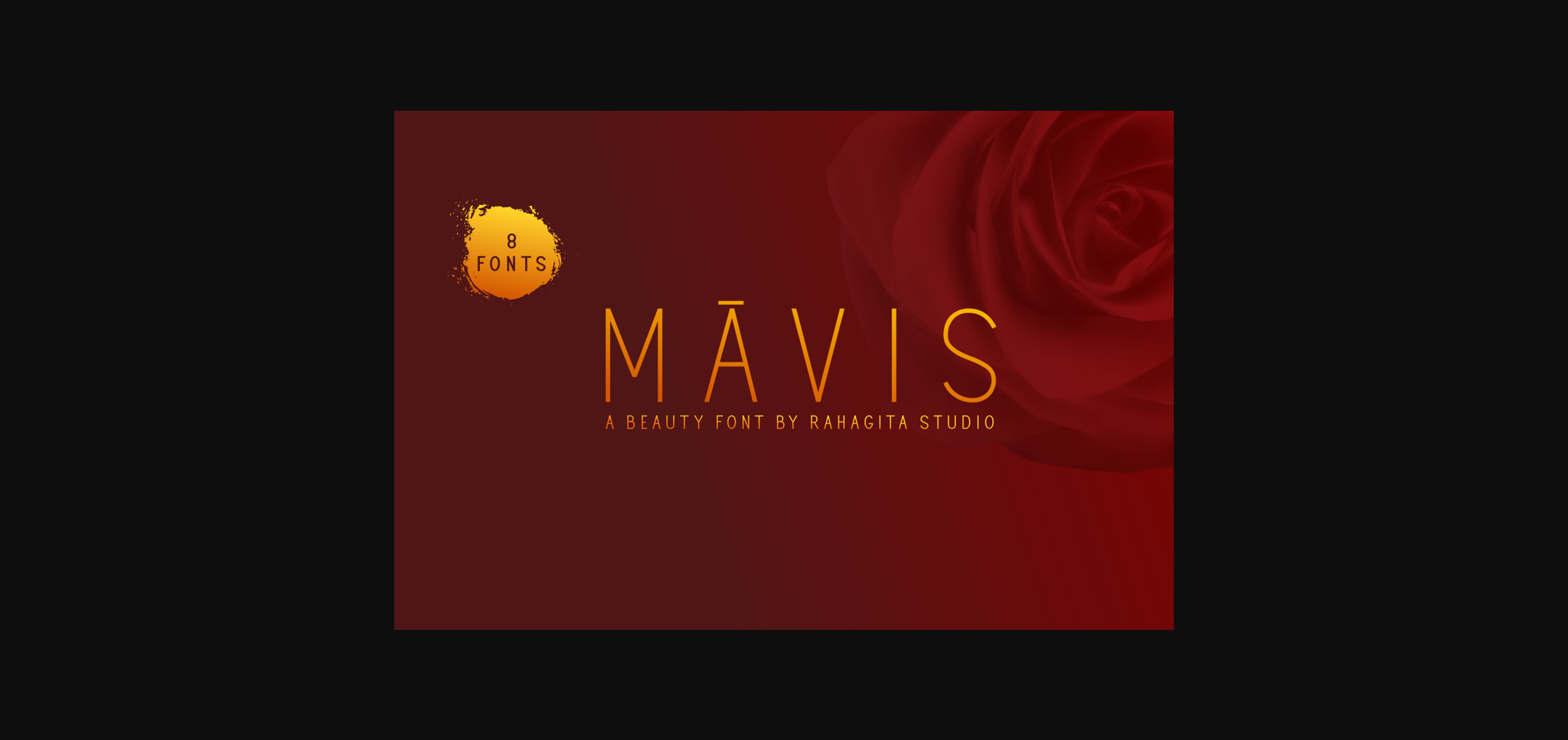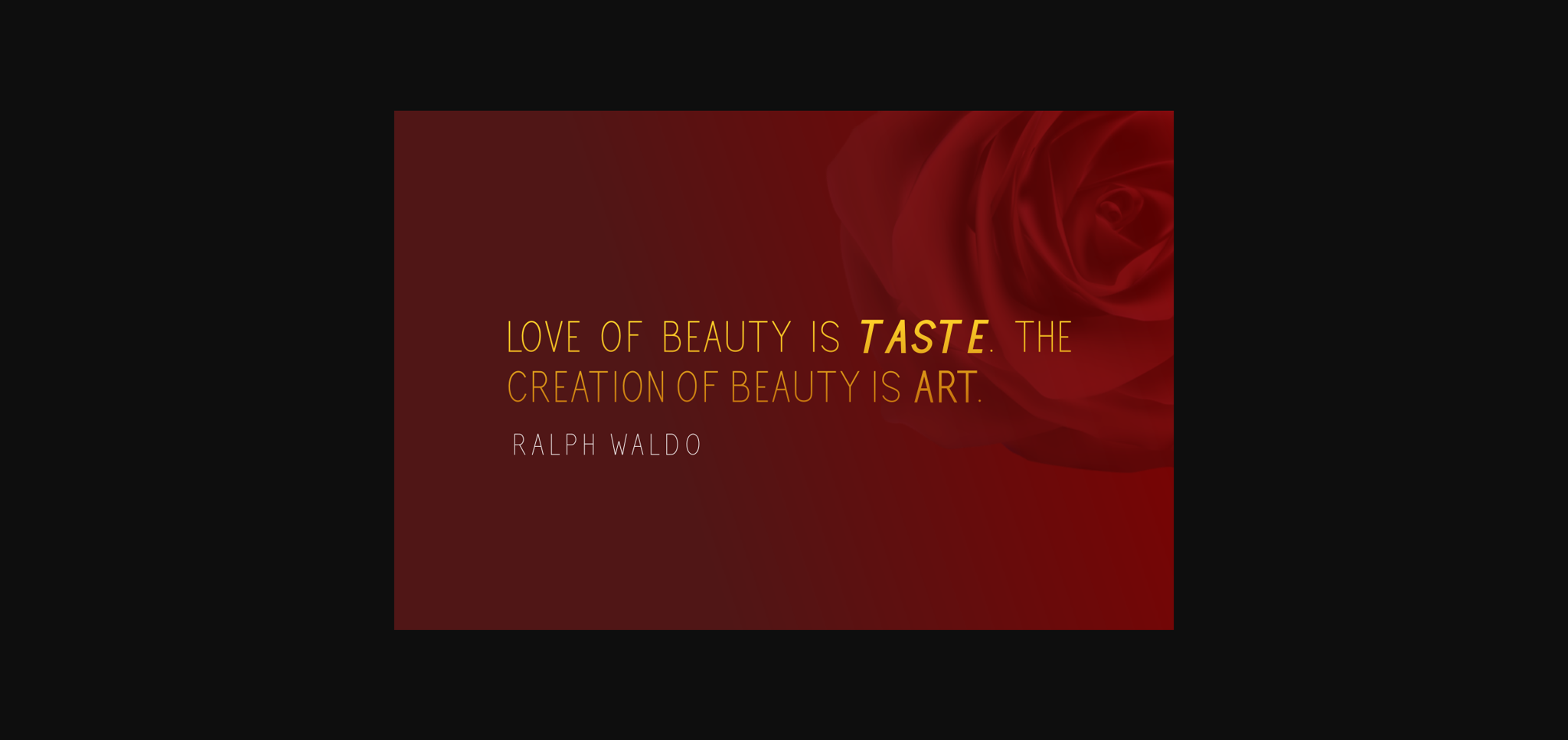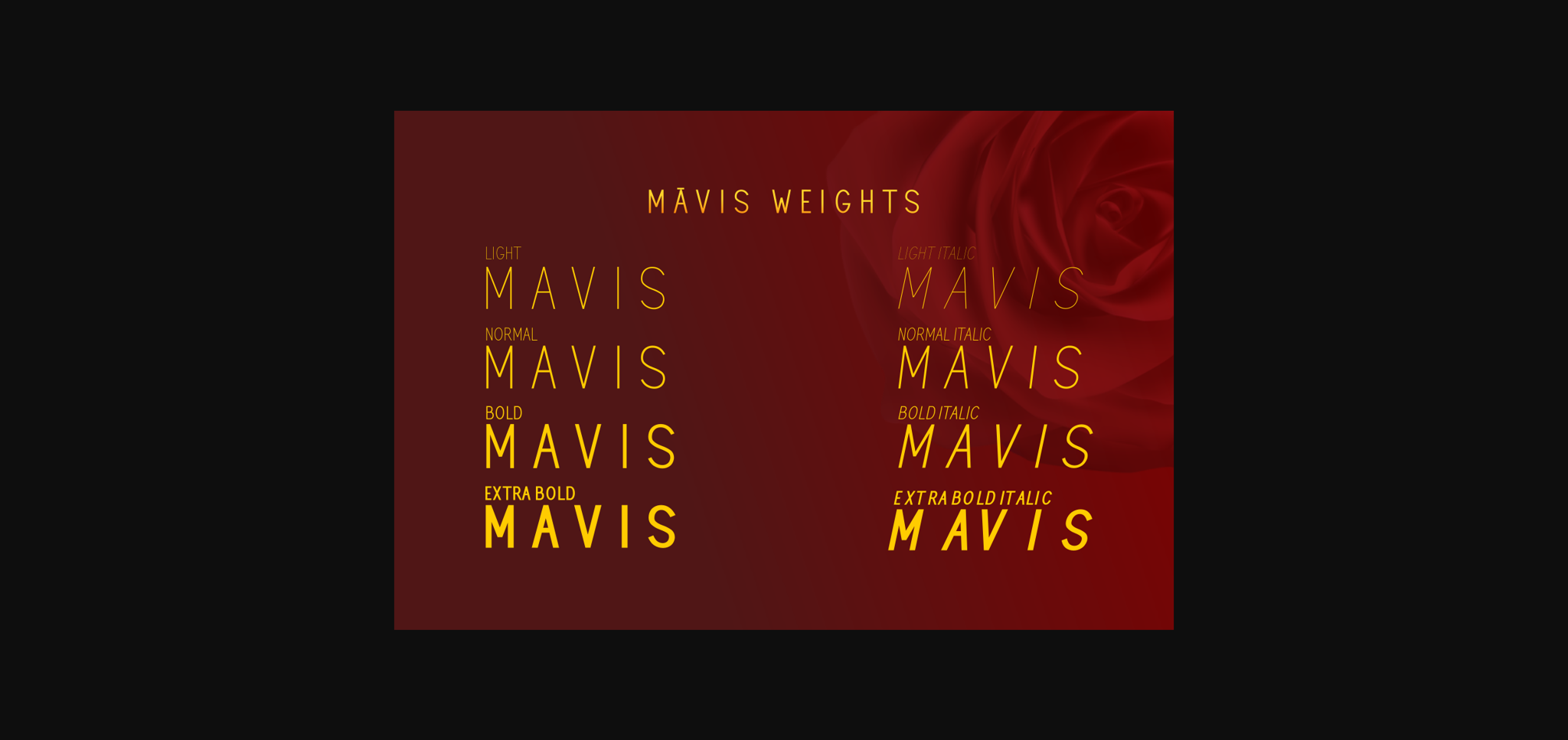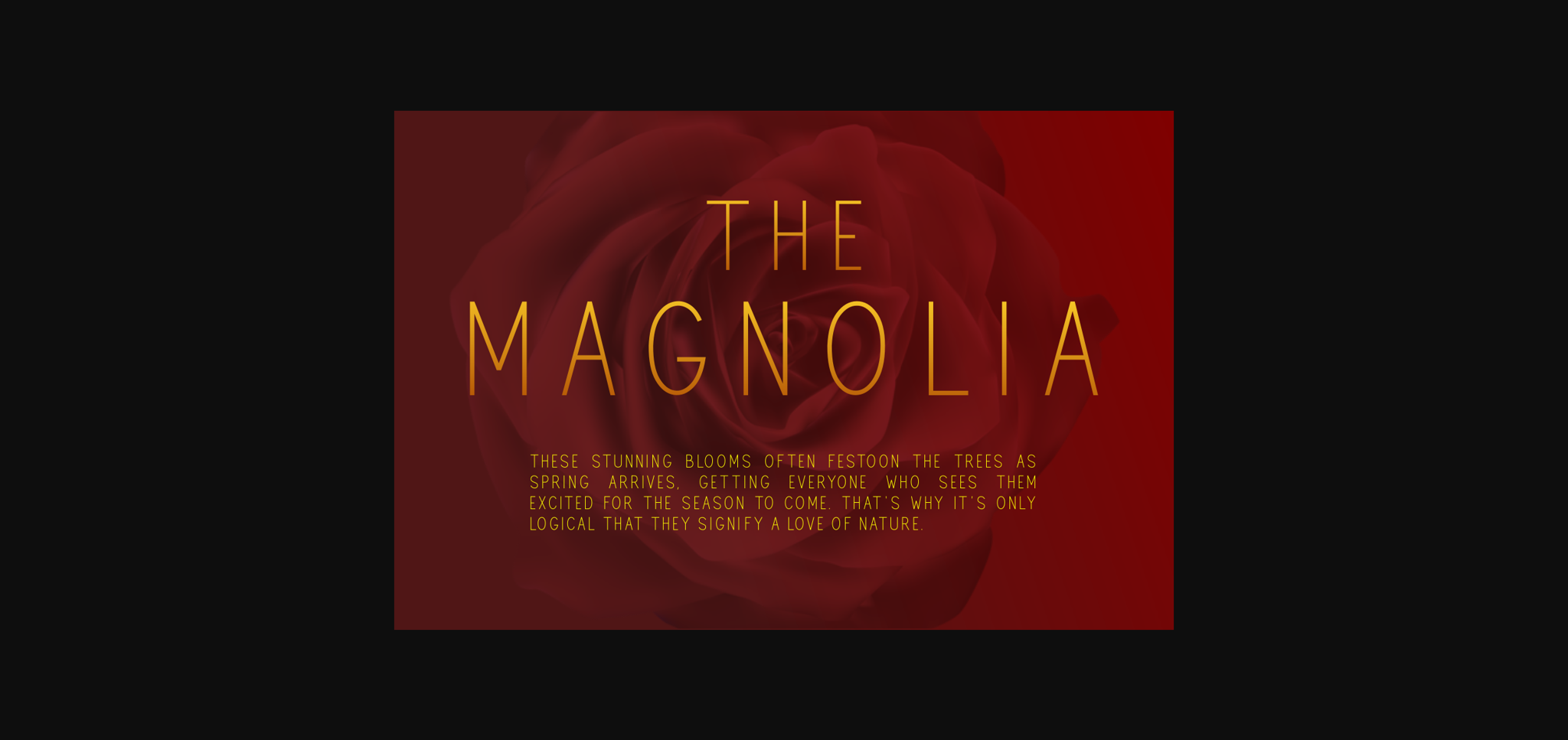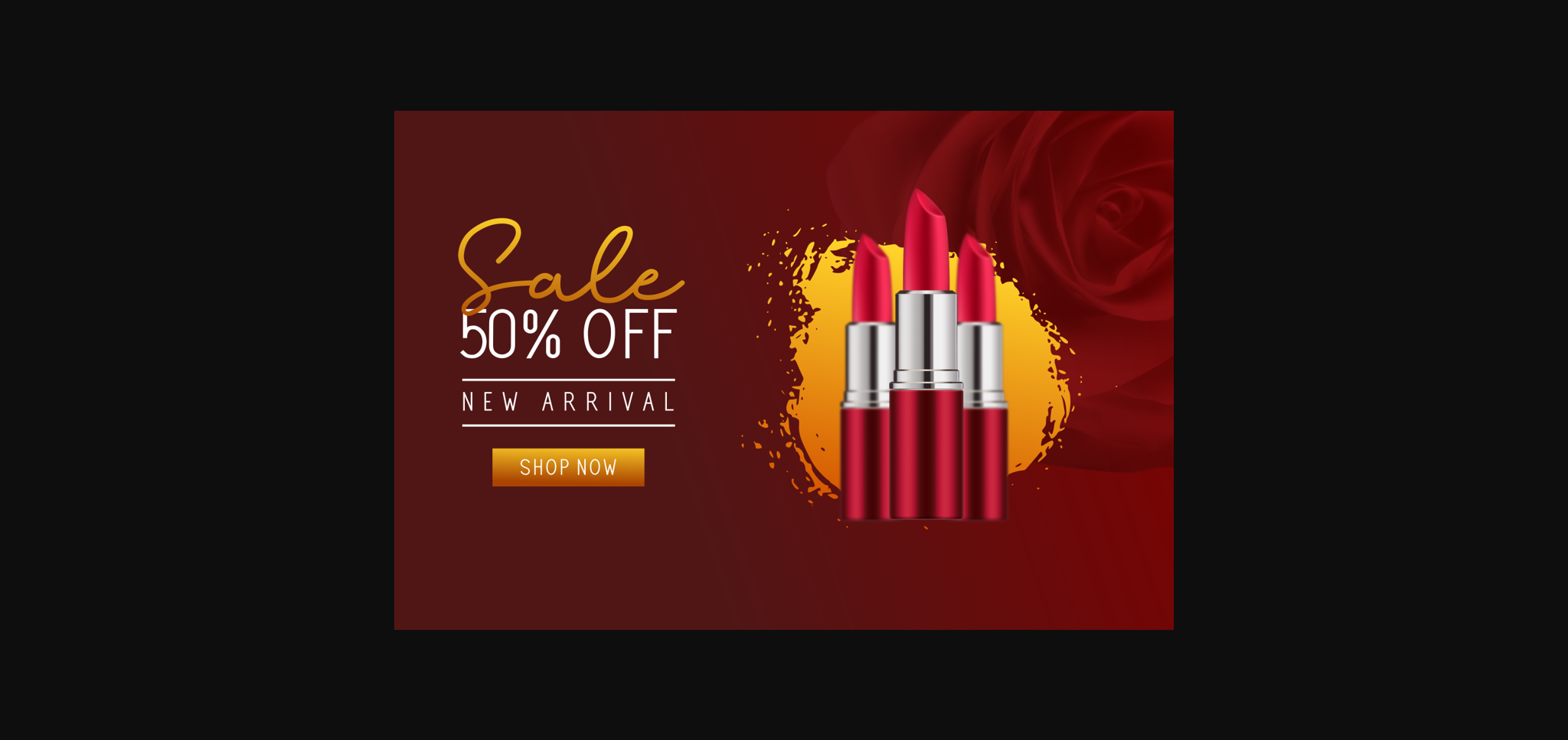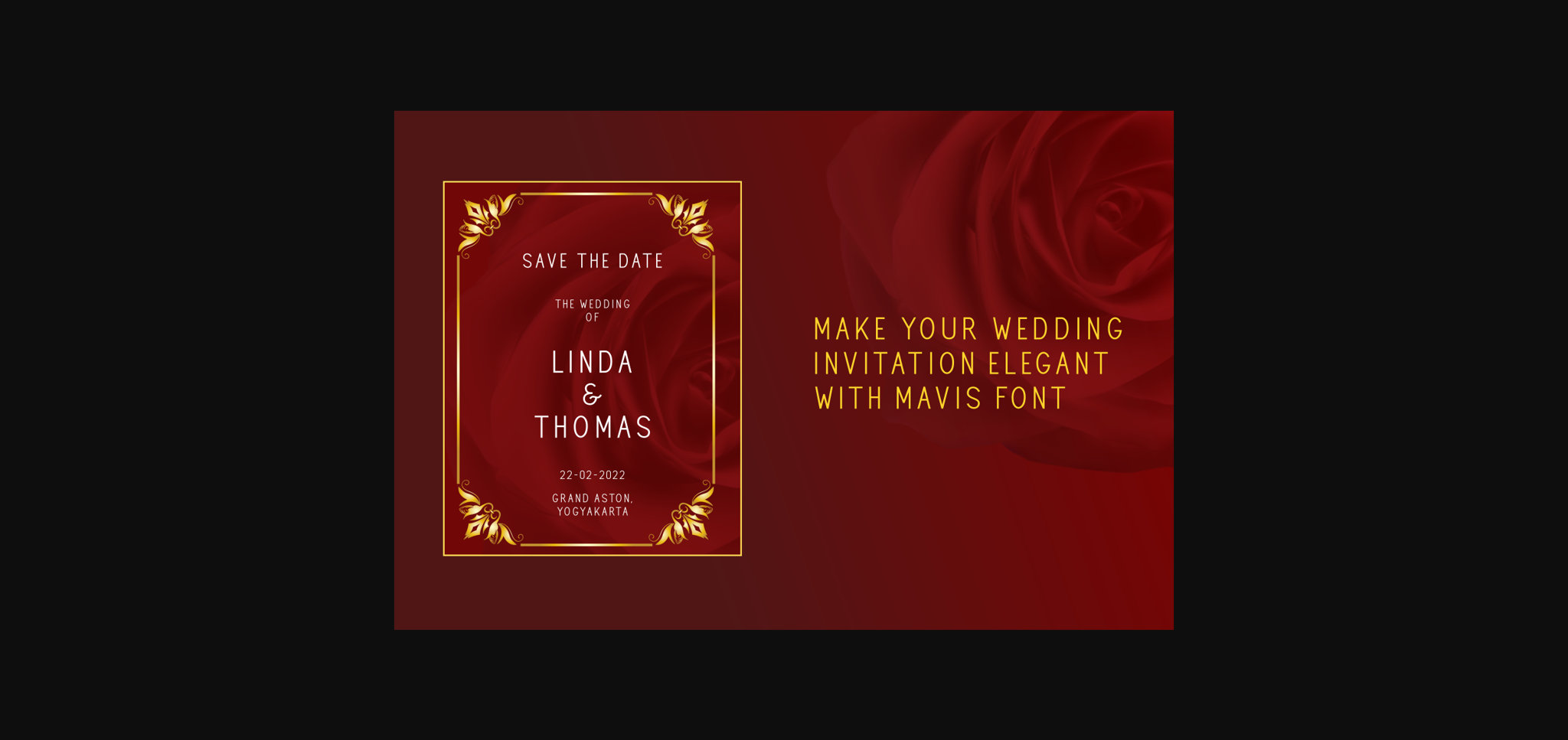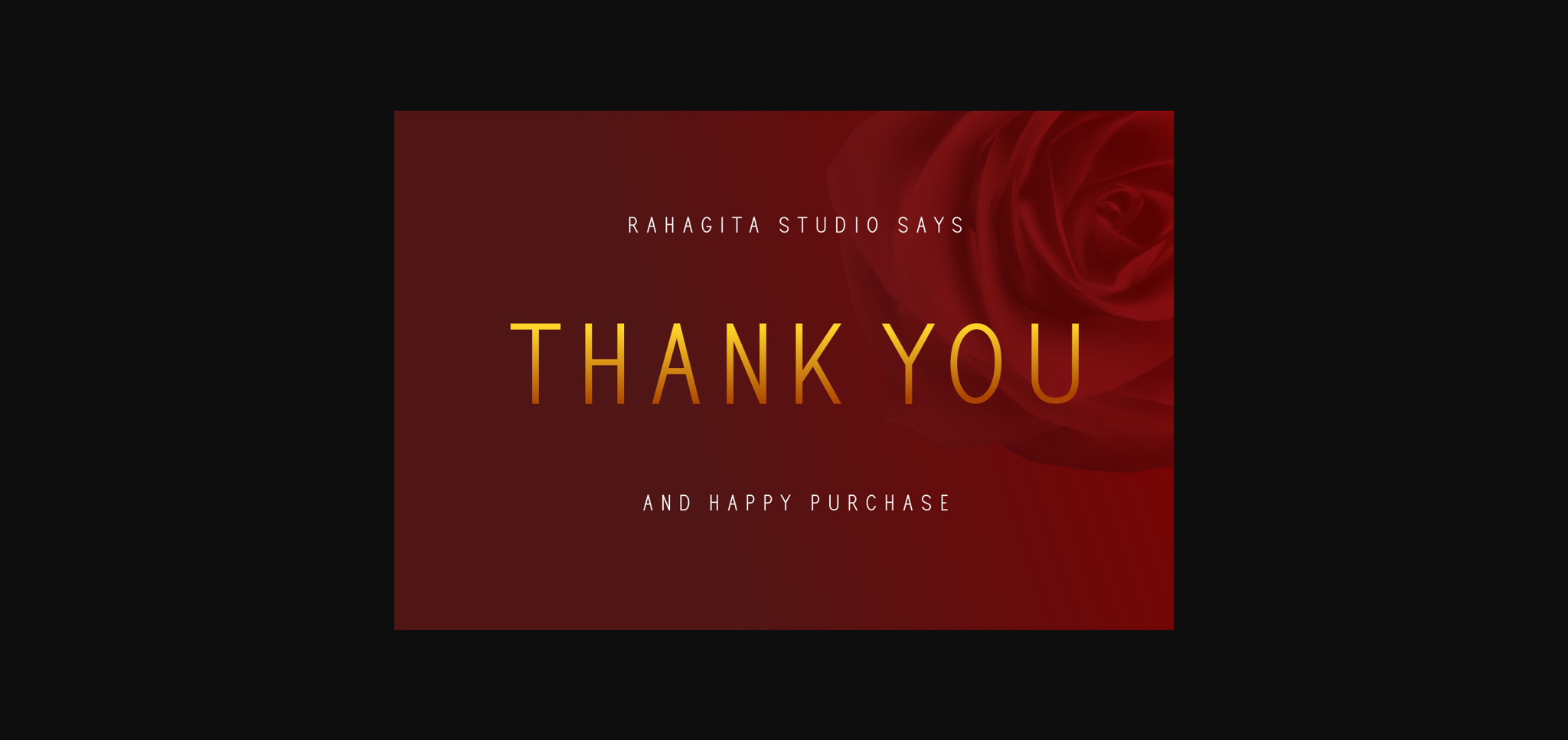
HomeSans Serif FontsMavis Font Sans Serif Fonts Mavis Font FacebookXPinterestWhatsApp 1 of 9 ... Mavis Font Poster 2... Mavis Font Poster 3... Mavis Font Poster 4... Mavis Font Poster 5... Mavis Font Poster 6... Mavis Font Poster 7... Mavis Font Poster 8... Mavis Font Poster 9... About Mavis Font Mavis is a minimal and neat sans serif font. It can easily be matched to an incredibly large set of projects, so add it to your creative ideas and notice how it makes them stand out! DOWNLOAD NOW People also explored Tranquil Font Simple Alinea Font Branded Signature Font Electrasonic Faust Text Zag Pakril Font Paradise Oliver Font Ublicojuh Font 389 0 TagsMavisMavis Font Previous articleBuffalor FontNext articleBristone Font LEAVE A REPLY Cancel reply Comment: Please enter your comment! Name:* Please enter your name here Email:* You have entered an incorrect email address! Please enter your email address here Website: Save my name, email, and website in this browser for the next time I comment. Personal Use Free Makeba Font Personal Use Free Read more about this font Sui Genesis Personal Use Free Read more about this font Sabina Illusion Personal Use Free Read more about this font Autumn Flowers Font Personal Use Free Read more about this font BLOG Free Fonts Risk: Why Free Fonts Can Be Dangerous for Designers Free Fonts Risk: Why Free Fonts Can Be Dangerous for Designers Using free fonts is a common practice in web and graphic design. However, the... How to Install and Use Fonts on Windows, macOS, and Web Projects Top 10 Handwritten Fonts That Elevate Your Designs Free vs Paid Fonts: Why Investing in Premium Fonts Is Worth It